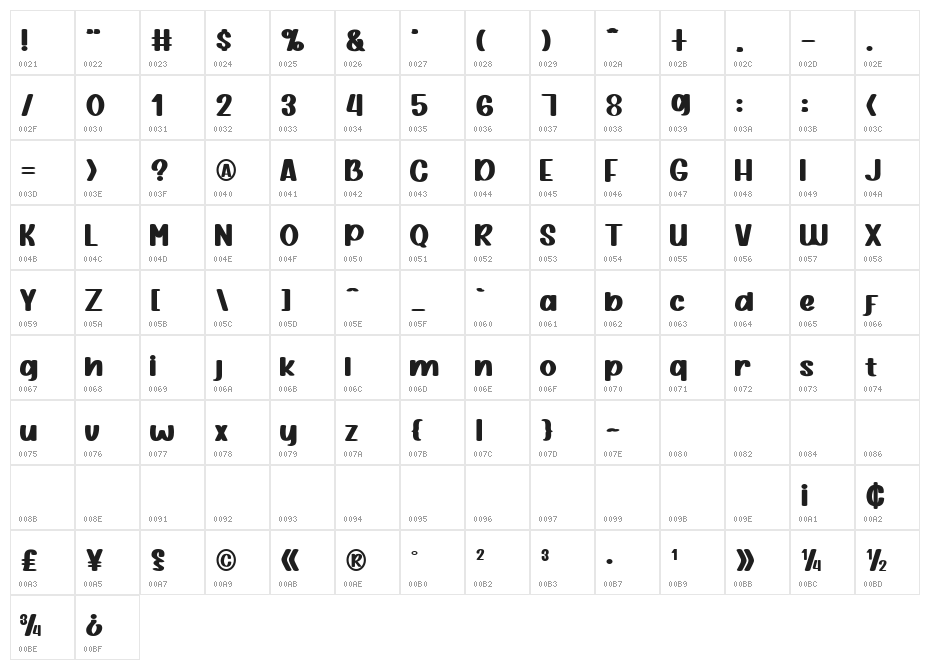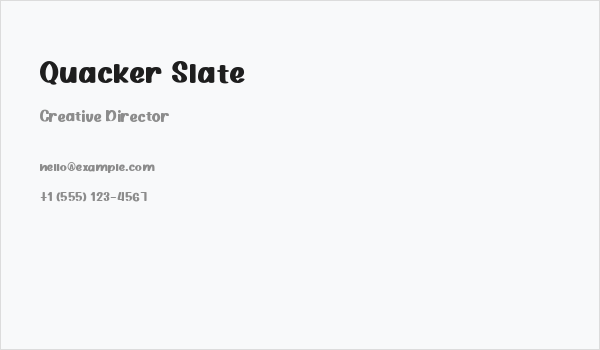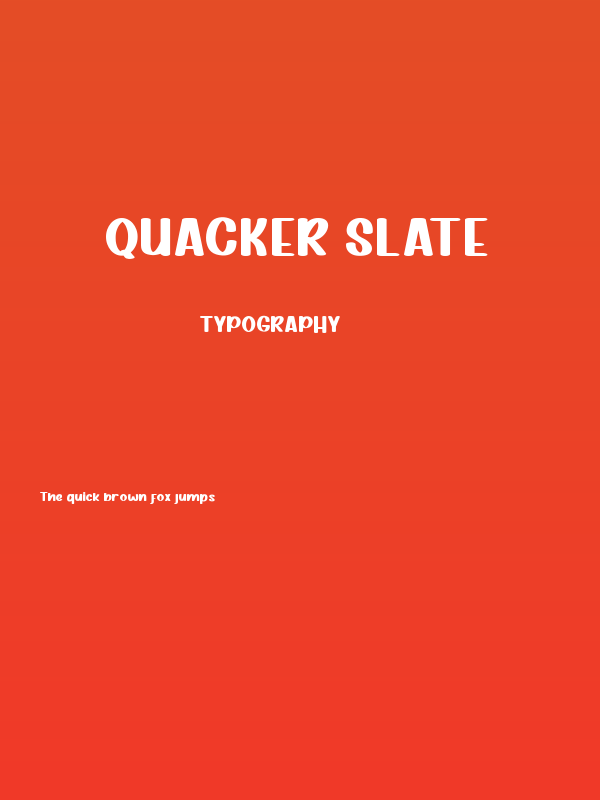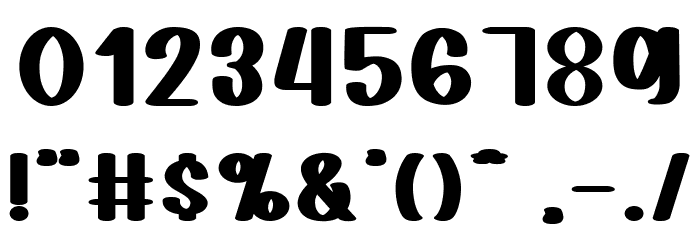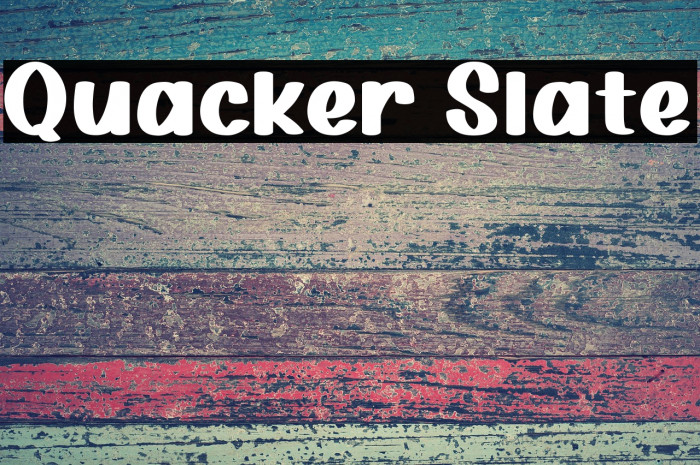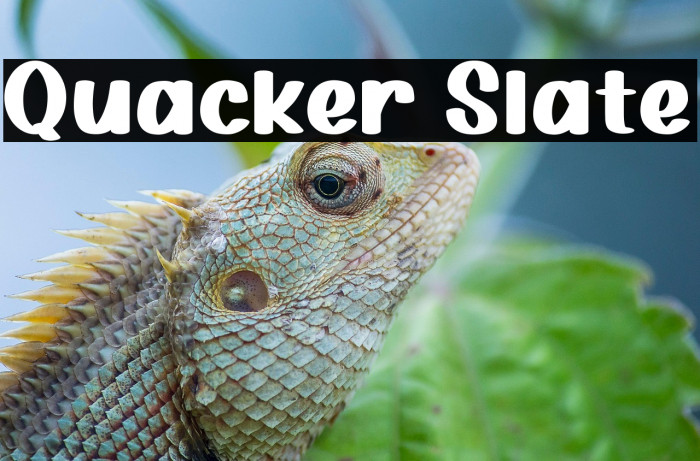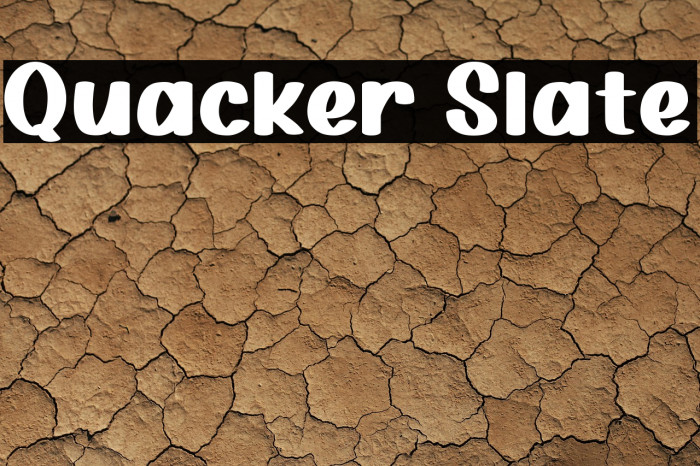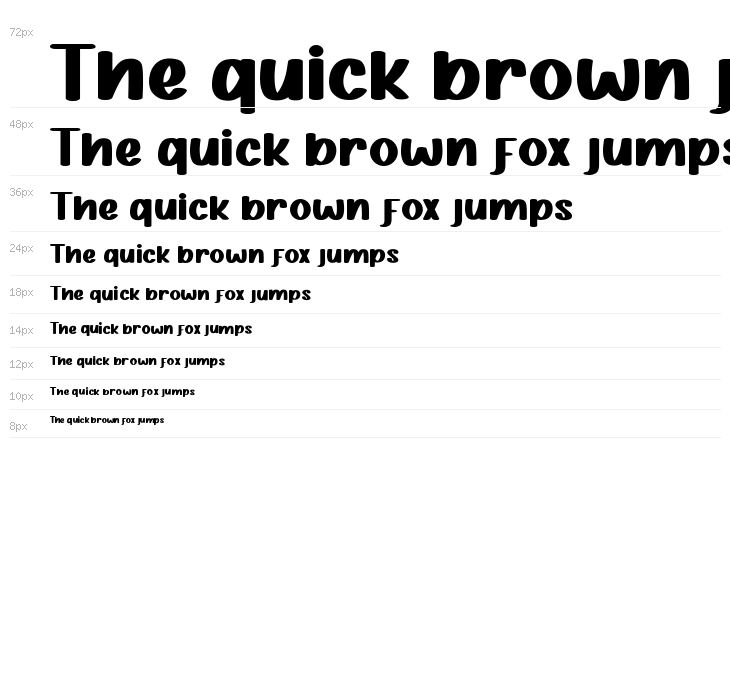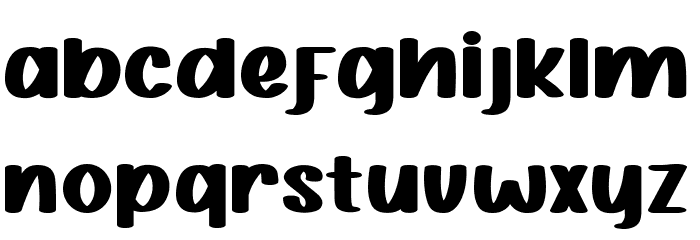
Quacker Slate Font
Quacker Slate Description
This playful and bold font features thick, rounded strokes that give it a friendly and approachable appearance. The characters are slightly condensed, with a whimsical flair that is evident in the unique shapes of letters like 'Q', 'R', and 'g'. The uppercase and lowercase letters maintain a consistent style, with smooth curves and a uniform weight that enhances readability. Numbers and special characters are designed with the same boldness, ensuring a cohesive look across all text elements. This font's distinct personality makes it ideal for projects that require a touch of fun and creativity.
| Proposed Projects | Ideal for children's books, playful branding, posters, and social media graphics. |